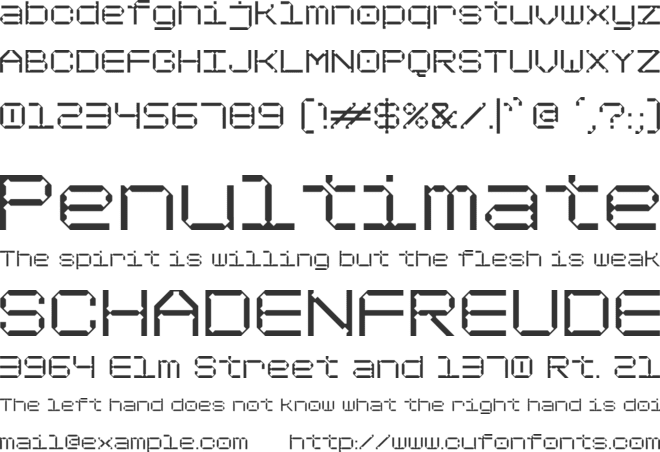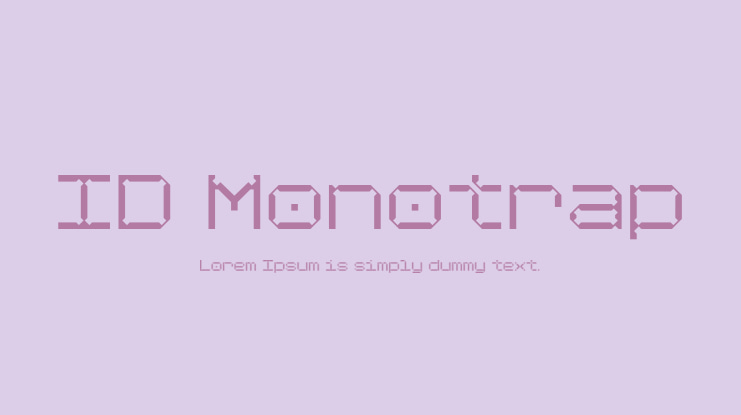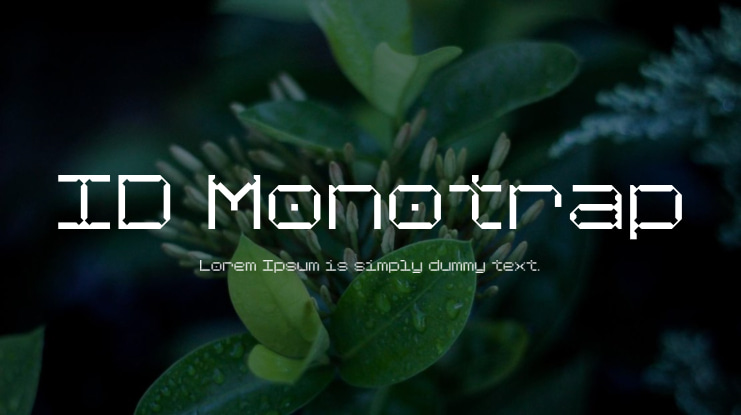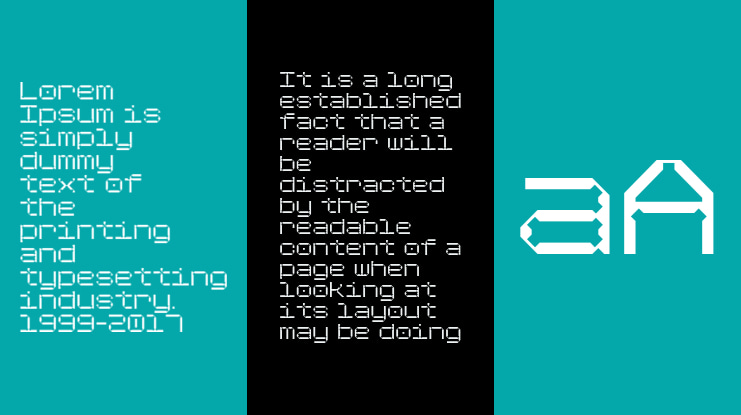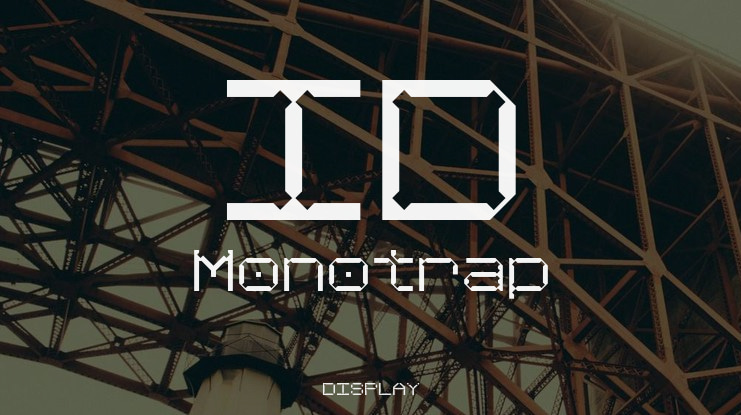
ID Monotrap Font
ID Monotrap is a display monospace typeface specifically designed so that each letter across the glyph set has an equal width. It features a mono weight, ensuring consistent stroke thickness throughout, which gives it a unique and modern aesthetic.